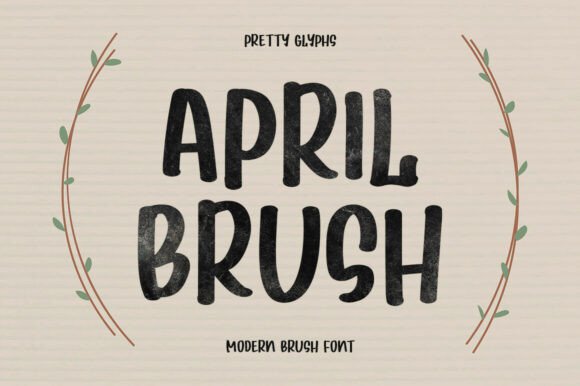
The April Brush Font: A Modern Twist on Elegance
I’ll never forget the design project that led me to discover the April Brush font. I was working on a branding project for a luxury wedding planner, and I needed a font that exuded elegance, sophistication, and a touch of whimsy. After hours of scouring font libraries and trying out different combinations, I stumbled upon April Brush. Its unique blend of brush strokes and refined lines instantly captured the essence of my client’s brand. In this article, I’ll share my experience with April Brush, its features, and how to make the most of this beautiful font.
- ✨ The elegant, flowing characters that give it a dynamic feel
- ✅ The perfect balance of modernity and sophistication
- 💫 The range of OpenType features, including stylistic alternates and glyphs
- 🎨 The versatility to work well in various design projects, from branding to invitations
While April Brush is an exceptional font, there are a few things to keep in mind:
- ⚠️ Some characters may not work well at very small font sizes due to the intricate brush strokes
- 🤔 Limited support for non-English languages, so double-check the character set
The Story Behind April Brush
April Brush was designed by a talented type designer who sought to create a font that combined the elegance of traditional calligraphy with the modernity of digital design. Inspired by the flowing brush strokes of Asian art and the sophistication of luxury brands, April Brush was born. The designer aimed to create a font that would add a touch of personality and whimsy to any design project, while maintaining a level of sophistication and refinement.
Q: What type of projects is April Brush best suited for?
A: April Brush is versatile and can be used in various design projects, including branding, logos, invitations, and more.
Q: Is April Brush a difficult font to work with?
A: While April Brush has some unique features, it’s relatively easy to work with, especially if you’re familiar with OpenType features and glyphs.